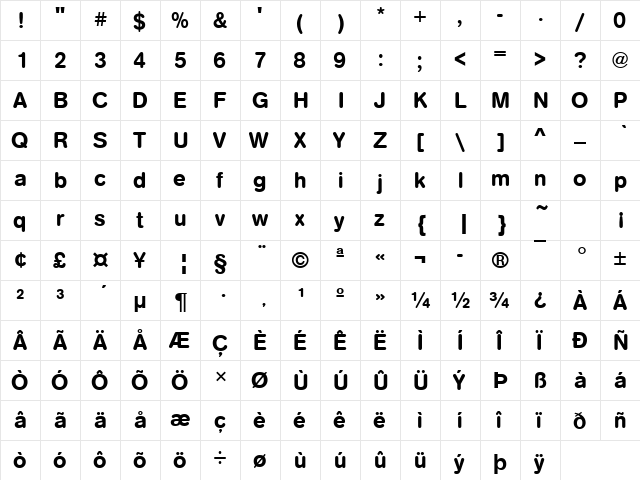
URWAccidaliaBucRouDMed Regular
Design Context for URWAccidaliaBucRouDMed Typeface
URWAccidaliaBucRouDMed is a composed and adaptable typeface that performs quietly and consistently across a wide range of design contexts.